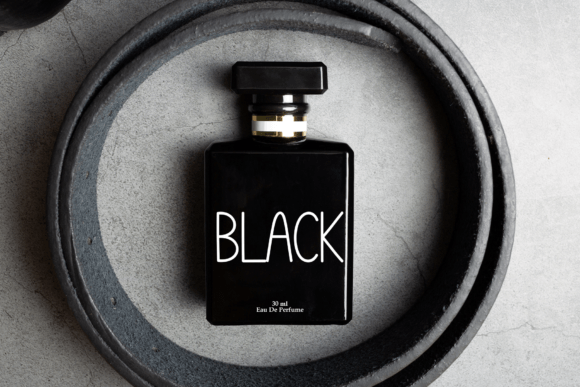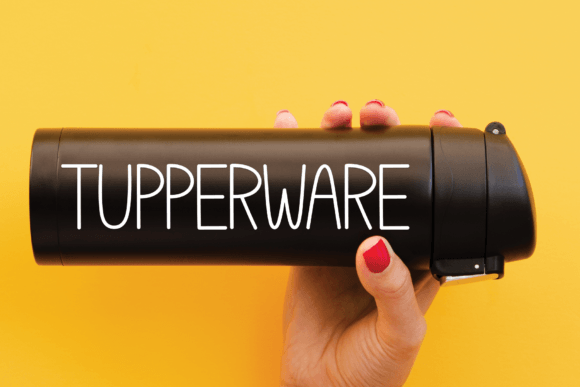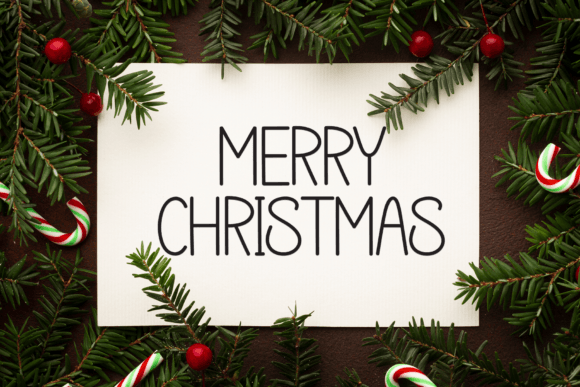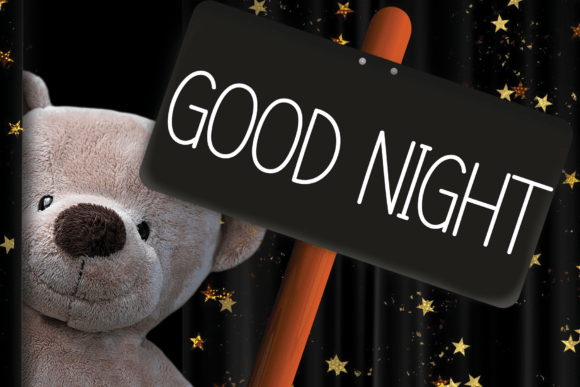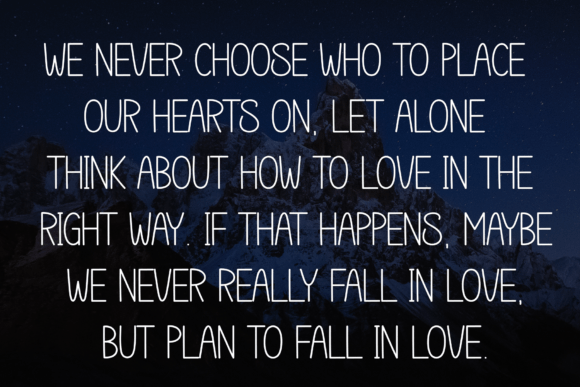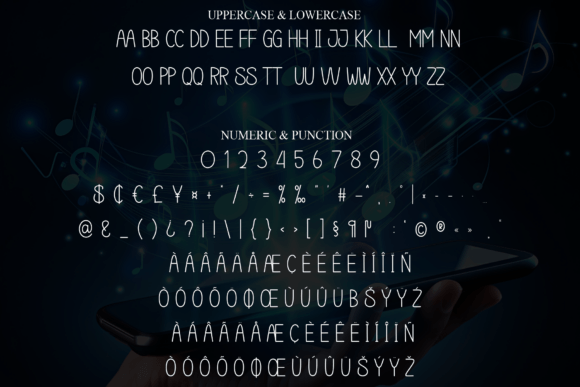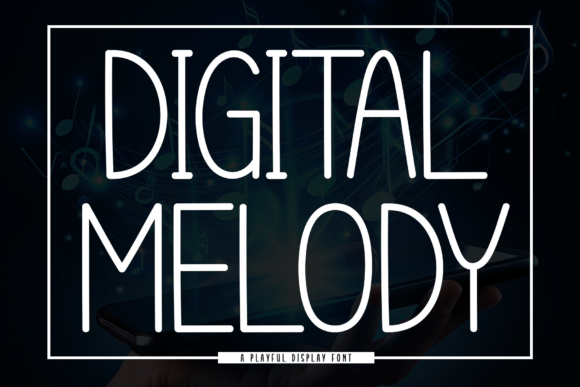
Discover the Beauty of Digital Melody Font: Elevate Your Designs with Elegance
In the world of digital design, fonts play a crucial role in conveying the tone and aesthetic of a project. For those seeking a touch of elegance and modernity, the Digital Melody Font stands out as an exceptional choice. This light and elegant handwritten font is designed to bring a personal touch to your creations, making it perfect for a variety of applications, from invitations and quotes to any creative project that demands a sophisticated look.
The Characteristics of Digital Melody Font
Digital Melody is distinguished by its thin lines, which give it a distinctly modern feel. This characteristic makes it an excellent option for designers and crafters looking to infuse their work with a contemporary edge. The font’s light and elegant nature ensures that it can complement a wide range of design themes, from minimalist to more elaborate compositions.
One of the key benefits of the Digital Melody Font is its versatility. Its elegant appearance makes it suitable for various design projects, including:
- Invitations: Whether you’re designing wedding invitations, birthday party invites, or any other event, Digital Melody adds a touch of sophistication and personal warmth.
- Quotes and Typography: For projects that focus on inspirational quotes, poems, or personal messages, this font helps convey the emotional depth and sincerity of the words.
- Creative Projects: From branding and packaging to digital media and art, Digital Melody can be seamlessly integrated into any creative project that requires a modern yet personal feel.
Why Choose Digital Melody Font?
There are several reasons why designers and crafters might prefer the Digital Melody Font for their projects:
- Elegance and Modernity: The font’s design strikes a perfect balance between elegance and modern simplicity, making it versatile for various design needs.
- Readability: Despite its thin lines, Digital Melody maintains high readability, ensuring that your messages are conveyed clearly and effectively.
- Personal Touch: The handwritten nature of the font adds a personal touch to designs, making them stand out and feel more unique and engaging.
Tips for Using Digital Melody Font
To maximize the impact of Digital Melody in your designs, consider the following tips:
- Pair with Complementary Fonts: For projects that require multiple fonts, pair Digital Melody with fonts that complement its elegance and modernity, such as sans-serif fonts for contrast.
- Adjust Line Spacing: Given its light nature, adjusting the line spacing can enhance readability and ensure your text is easy to read.
- Color Selection: Choose colors that align with the mood of your project. Digital Melody works well with both pastel colors for a soft look and bold colors for a more striking appearance.
Digital Melody Font offers a unique combination of elegance, modernity, and personal warmth, making it an excellent choice for designers and crafters looking to elevate their projects. Its versatility, readability, and aesthetic appeal ensure that it can be used across a variety of applications, from invitations and quotes to creative design projects. By incorporating Digital Melody into your designs, you can achieve a sophisticated look that resonates with your audience and sets your work apart.
Whether you’re a professional designer or a DIY crafter, Digital Melody Font is a valuable addition to your toolkit, ready to bring a touch of elegance and modernity to your creations.